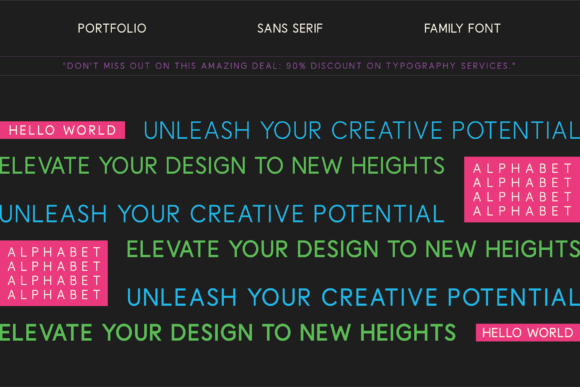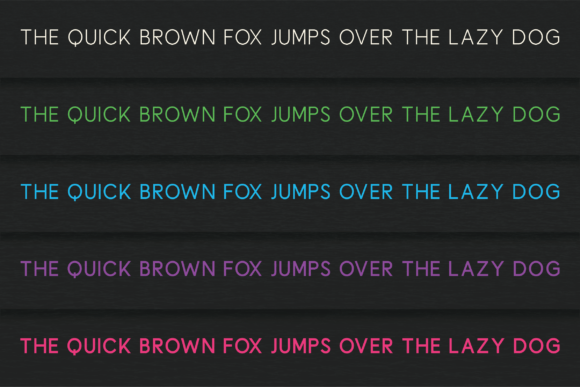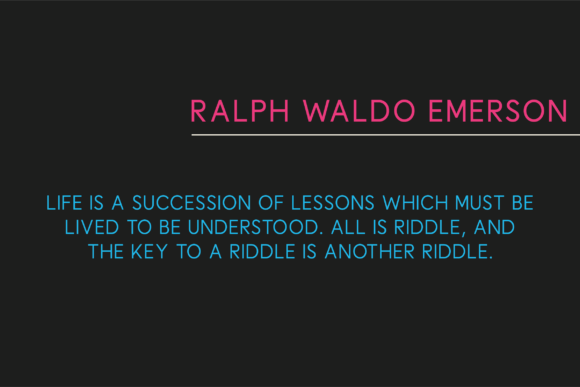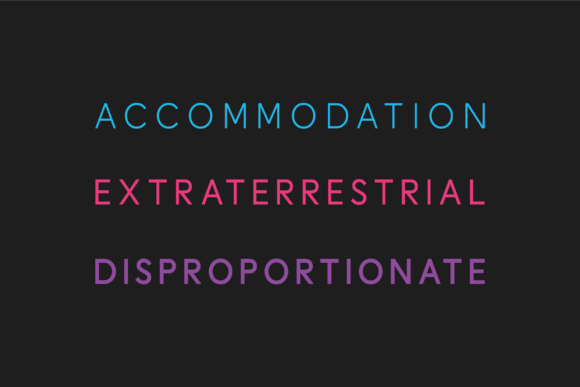
Introducing Alphabet Font Family — A Masterpiece of Elegance and Modern
Imagine working on a project, pouring your heart and soul into every detail, only to struggle with finding the perfect font. I recall a particularly frustrating experience where I spent hours searching for a font that would elevate my design from good to great. The client wanted something modern, elegant, and versatile — a font that would seamlessly adapt to various design elements, from magazine layouts to logos and film posters. That’s when I discovered Alphabet Font, a game-changing sans-serif font family that redefines modern design.
The Birth of Alphabet Font
Designed with precision and an eye for detail, Alphabet Font strikes the perfect balance between sophistication and simplicity. But have you ever wondered what inspires a font designer to create such a masterpiece? Let’s take a step back and imagine a young designer, Alex, who grew up surrounded by art and design. Alex’s passion for typography began at a young age, and after years of experimenting with different styles and techniques, they decided to create a font that would be both elegant and modern.
Alex’s journey as a font designer was not without its challenges. They spent countless hours perfecting the curves and lines of each letter, making sure that every detail was meticulously crafted. The result is a font that exudes timeless charm and contemporary luxury.
What Makes Alphabet Font Special?
Alphabet Font is not just another font — it’s a meticulously crafted sans-serif font family that offers unparalleled versatility. With 5 distinct weights, you can use it for a wide range of projects, from magazines and logos to film posters and beyond.
Key Features:
- ✨ 5 distinct weights for versatility
- ✅ Elegant and modern design
- ✅ Perfect balance between sophistication and simplicity
- ✅ Suitable for various design projects
- ✨ The font’s exceptional legibility, even at small sizes
- ✅ The range of weights provides flexibility for different design applications
- ✅ The font’s modern and elegant aesthetic
- ⚠️ Some users may find the font too minimalist for certain projects
- 🤔 Limited support for non-English languages
Exploring OpenType Features, Glyphs, and Stylistic Alternates
Alphabet Font supports OpenType features, glyphs, and stylistic alternates, allowing you to take your designs to the next level. Experiment with different ligatures, stylistic sets, and swashes to add a unique touch to your typography.
Q: What is Alphabet Font?
A: Alphabet Font is a sans-serif font family designed for modern design projects. It features 5 distinct weights and offers unparalleled versatility.
Q: Is Alphabet Font suitable for body text?
A: Yes, Alphabet Font is designed for both display and body text. Its exceptional legibility makes it suitable for a wide range of design applications.